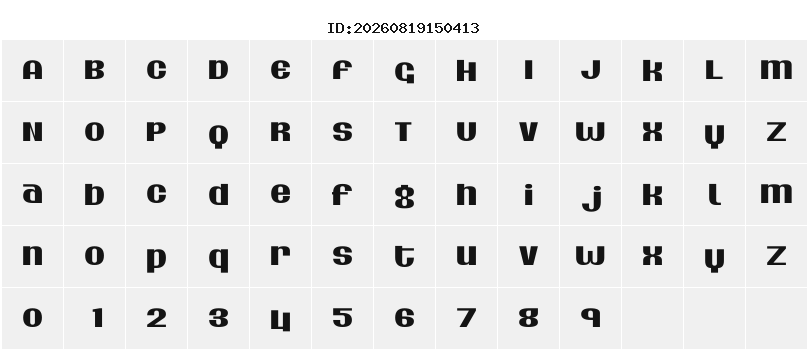
• Font Name: Silver Dollar
• Designer: Darren Rigby
• Manufacturer: Starving-4 Entertainment
About Silver Dollar.ttf
Silver Dollar.ttf is a modern, elegant sans-serif font designed for ultimate readability and visual harmony. Perfect for branding, headlines, web design, and print materials.